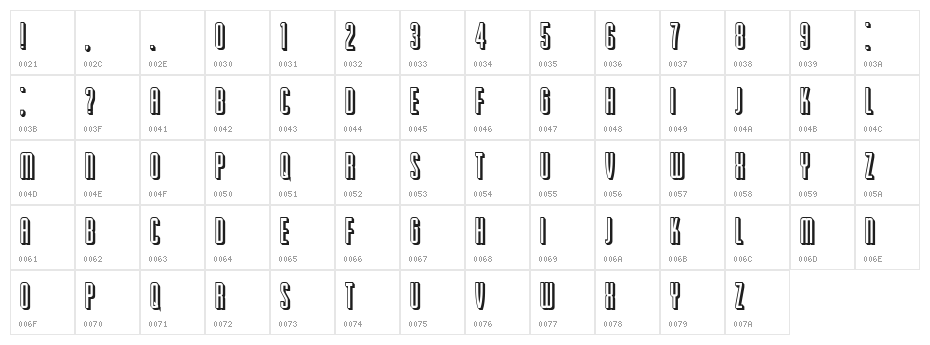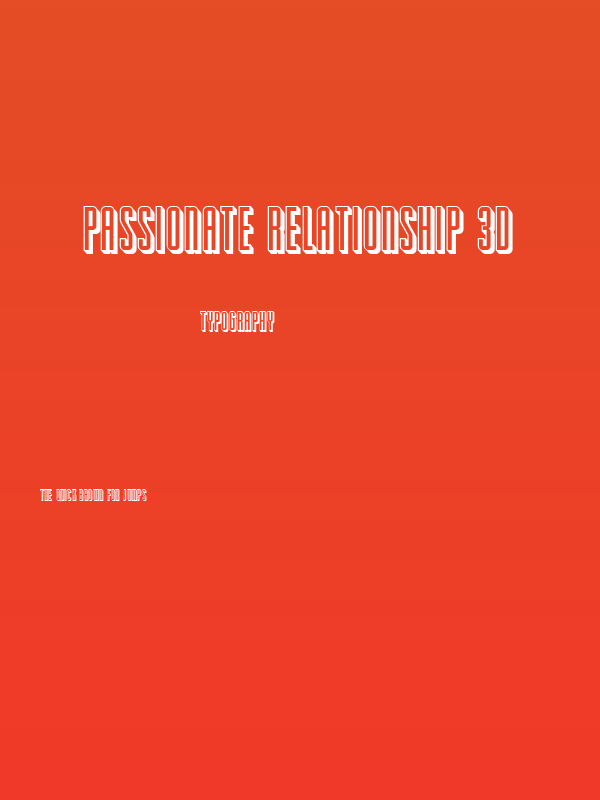
Passionate Relationship 3D Font
Passionate Relationship 3D Description
This font features a bold, three-dimensional style with a strong presence. Each character is outlined with a shadow effect, giving it a striking and dynamic appearance. The letters are all uppercase, with a geometric and blocky design that emphasizes straight lines and sharp angles. The numbers and special characters follow the same bold and impactful style, making them stand out prominently. The overall look is modern and eye-catching, suitable for making a statement in any design project.
| Proposed Projects | Ideal for posters, headlines, logos, and any design requiring a bold statement. |